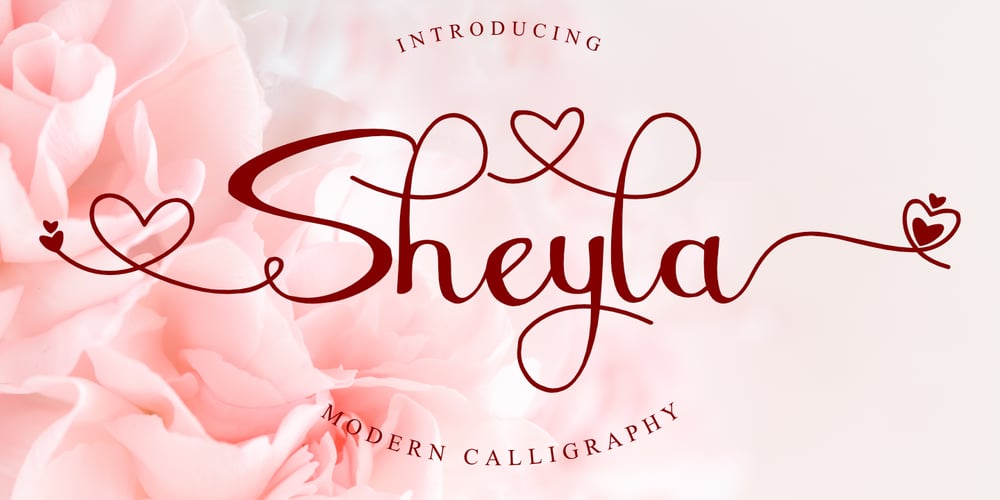
Sheyla
Sheyla font
Sheyla Font Family was designed by Stephanus Prabowo and published by Andrey Font Design. Sheyla contains 1 styles and family package options. Sheila is a beautiful and romantic script font with multiple heart swashes to suit any of your valentine’s designs! This font is PUA encoded which means you can access all of the available glyphs and swashes with ease!